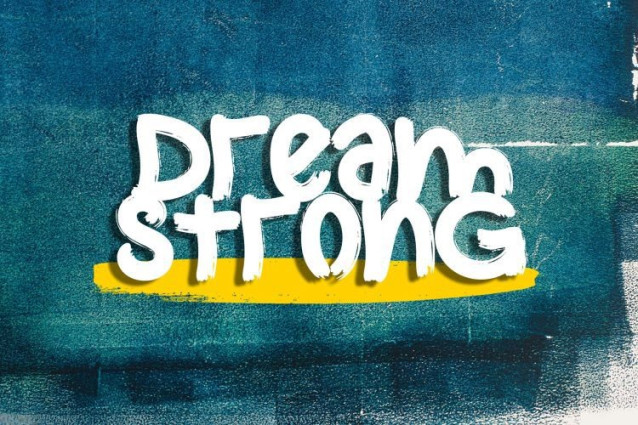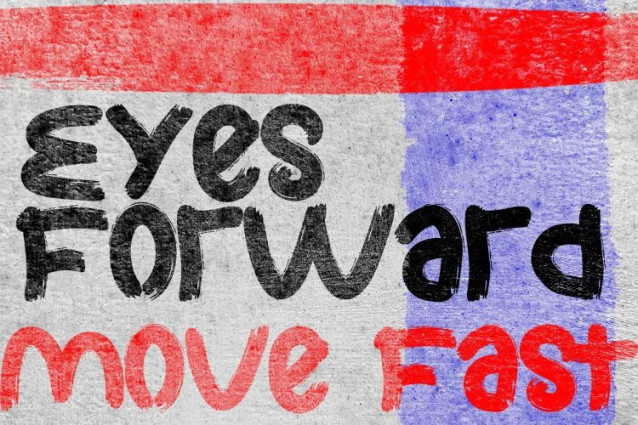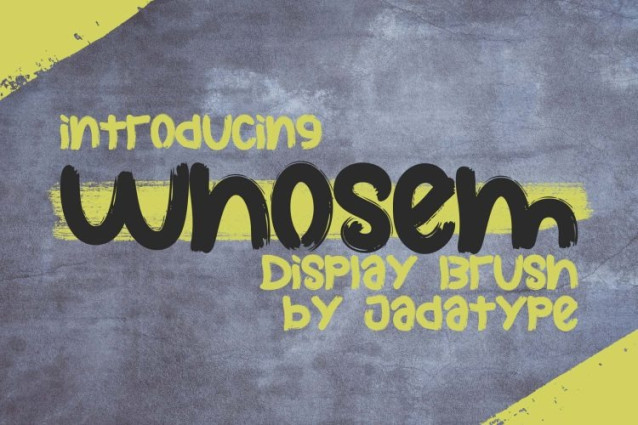
Whosem Brush Font
Whosem Brush Font is a display font with a bold brush style. suitable for social media, event, branding, advertisements, and so on. contains standard English letters, numbers, punctuation, and several accents that support multilingualism.